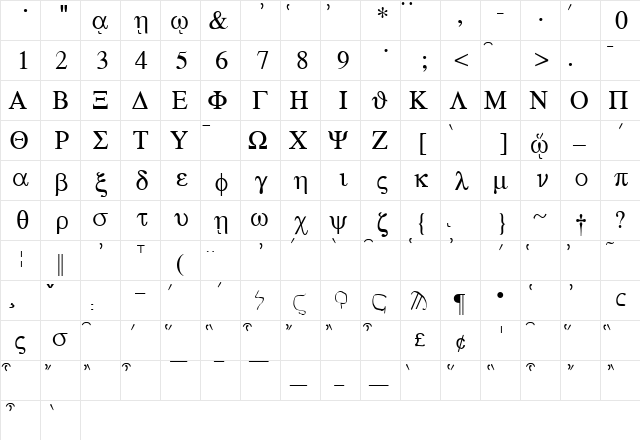
Sgreek Fixed Normal
Design Context for Sgreek Fixed Typeface
Sgreek Fixed offers clean, dependable letterforms without strong stylistic allegiance, making it a practical choice for designers who need flexibility.